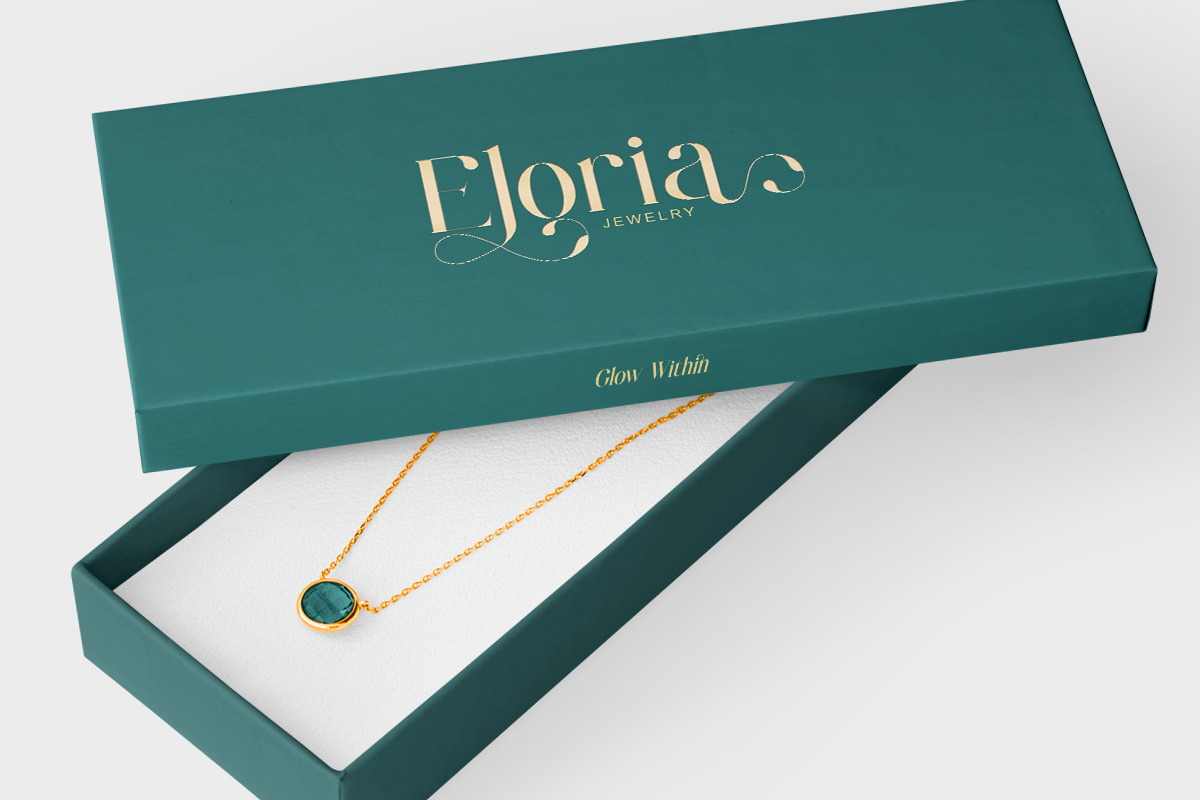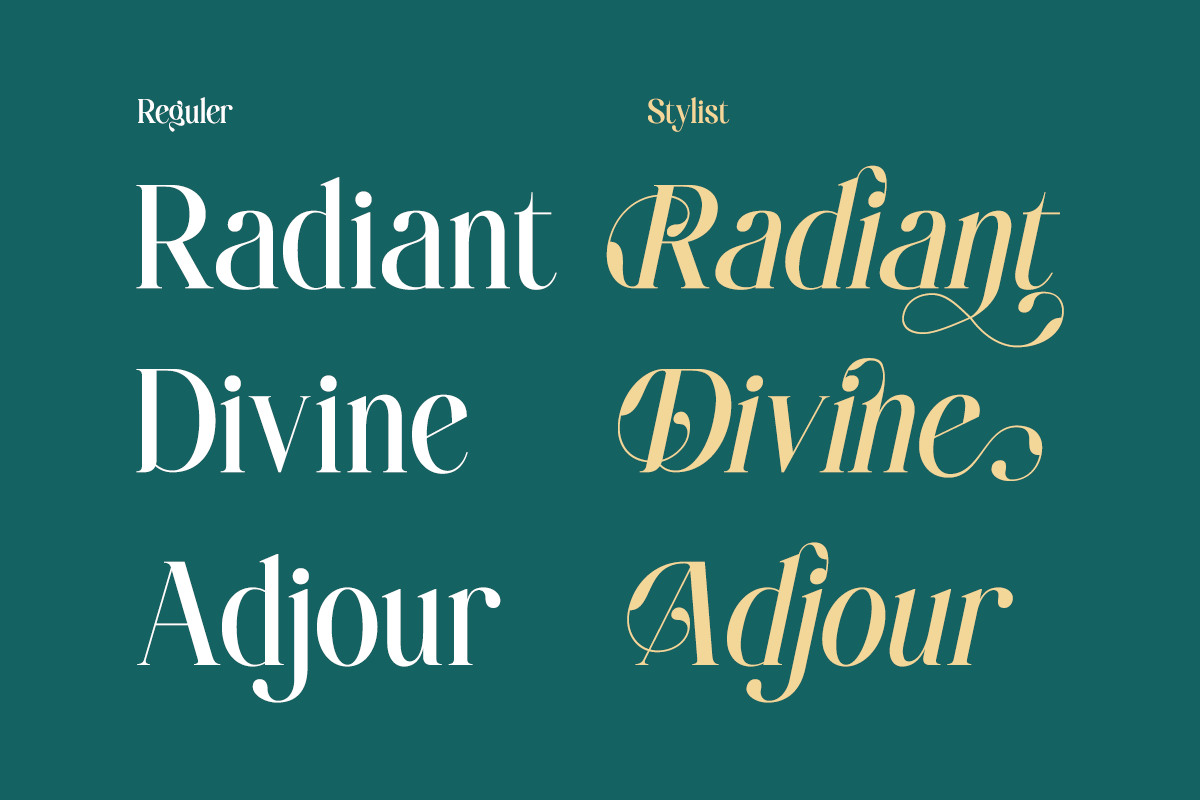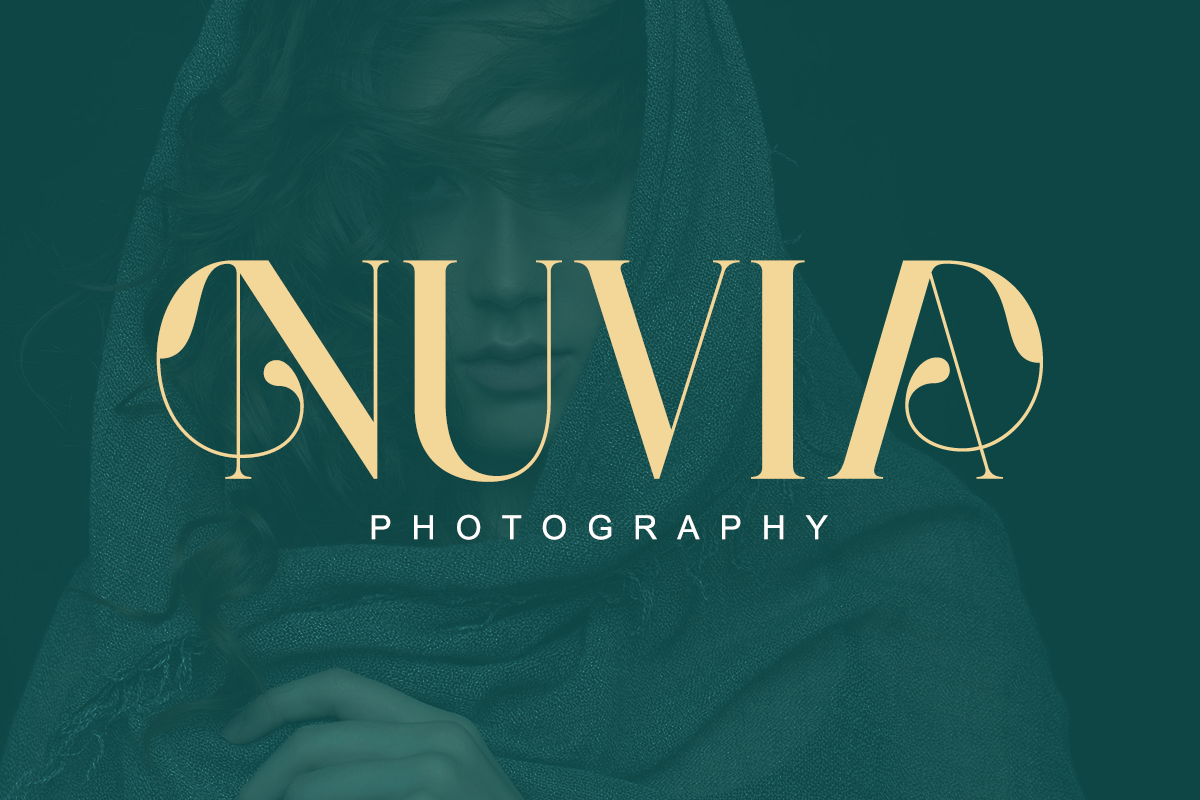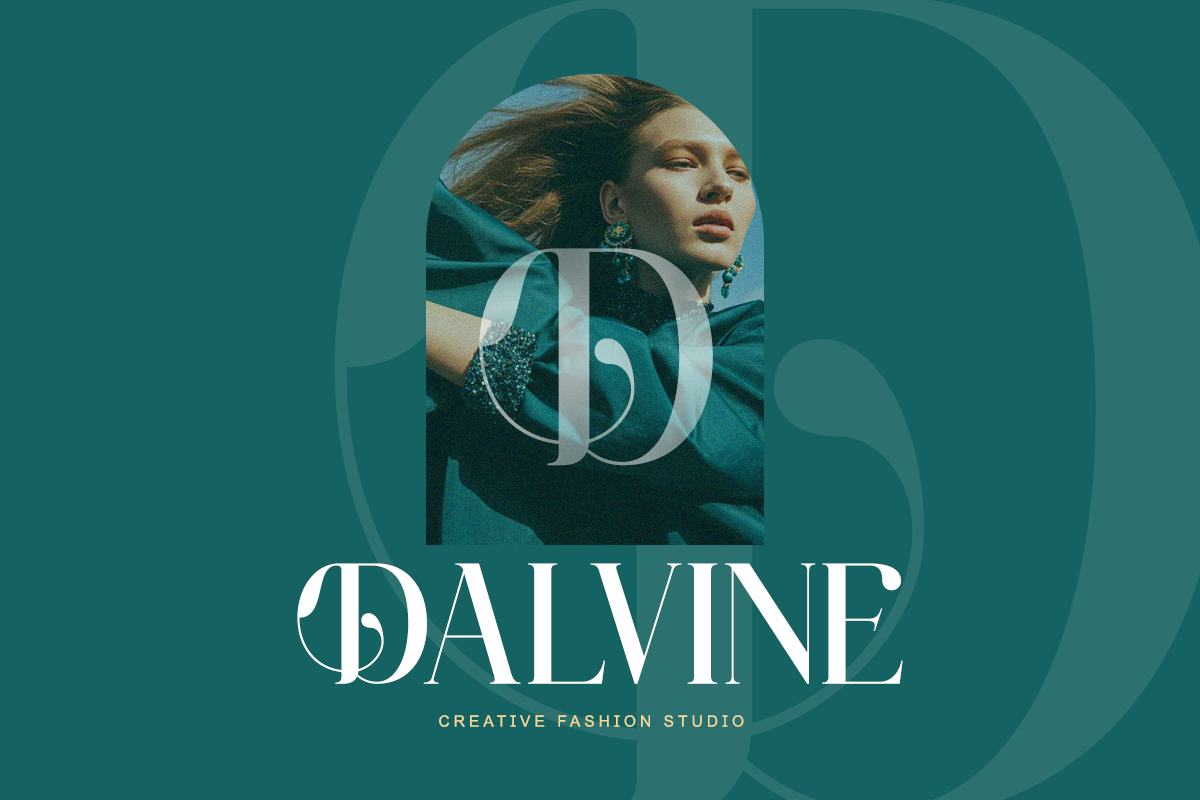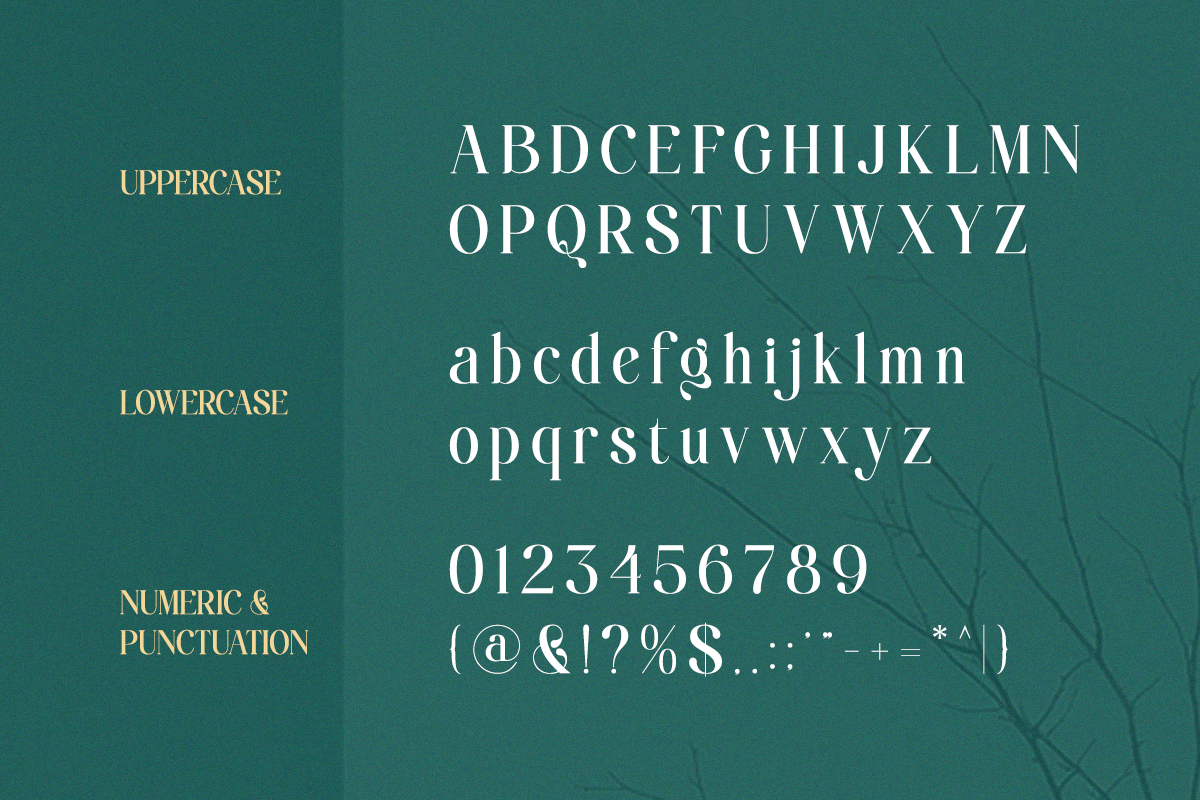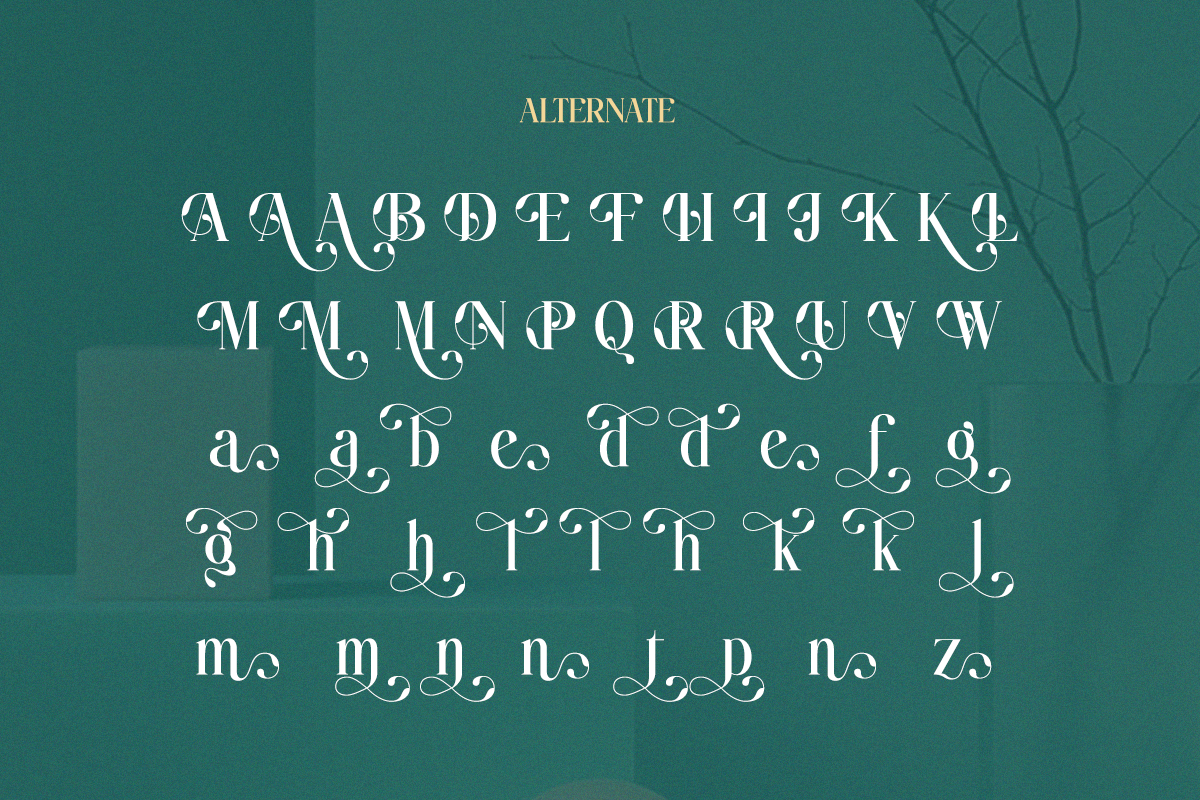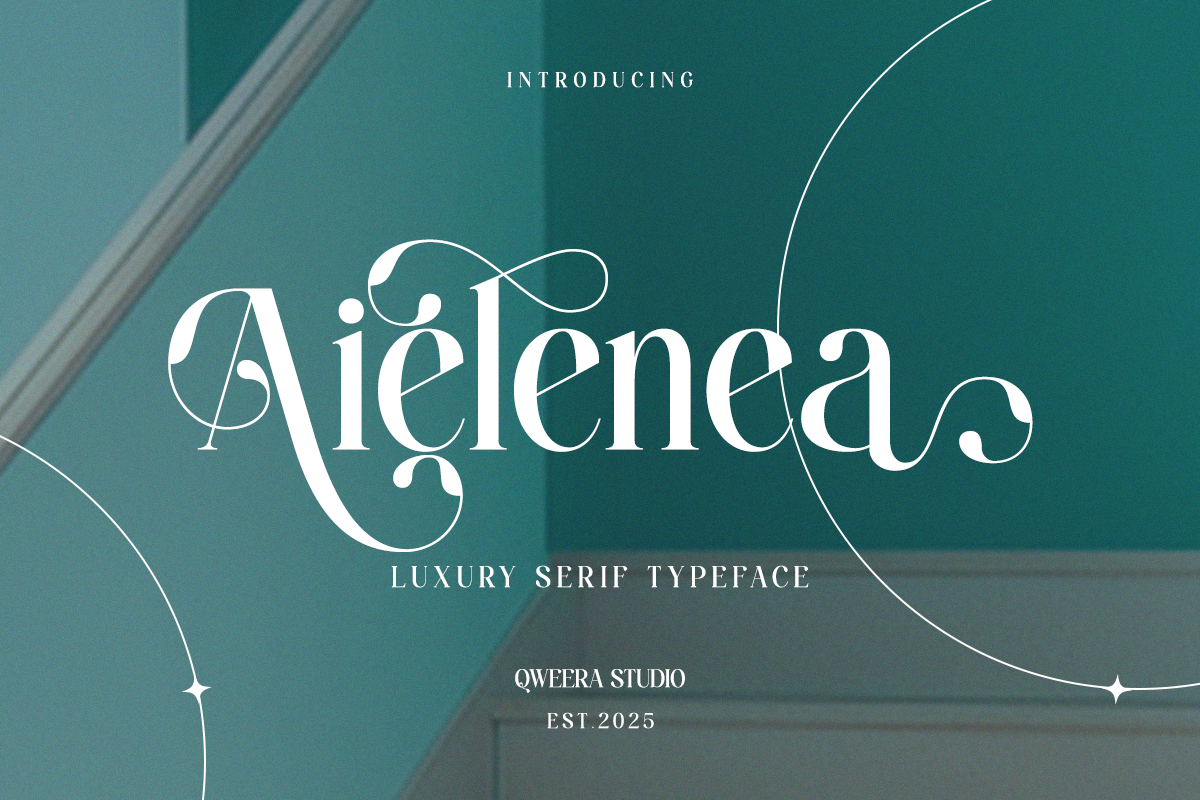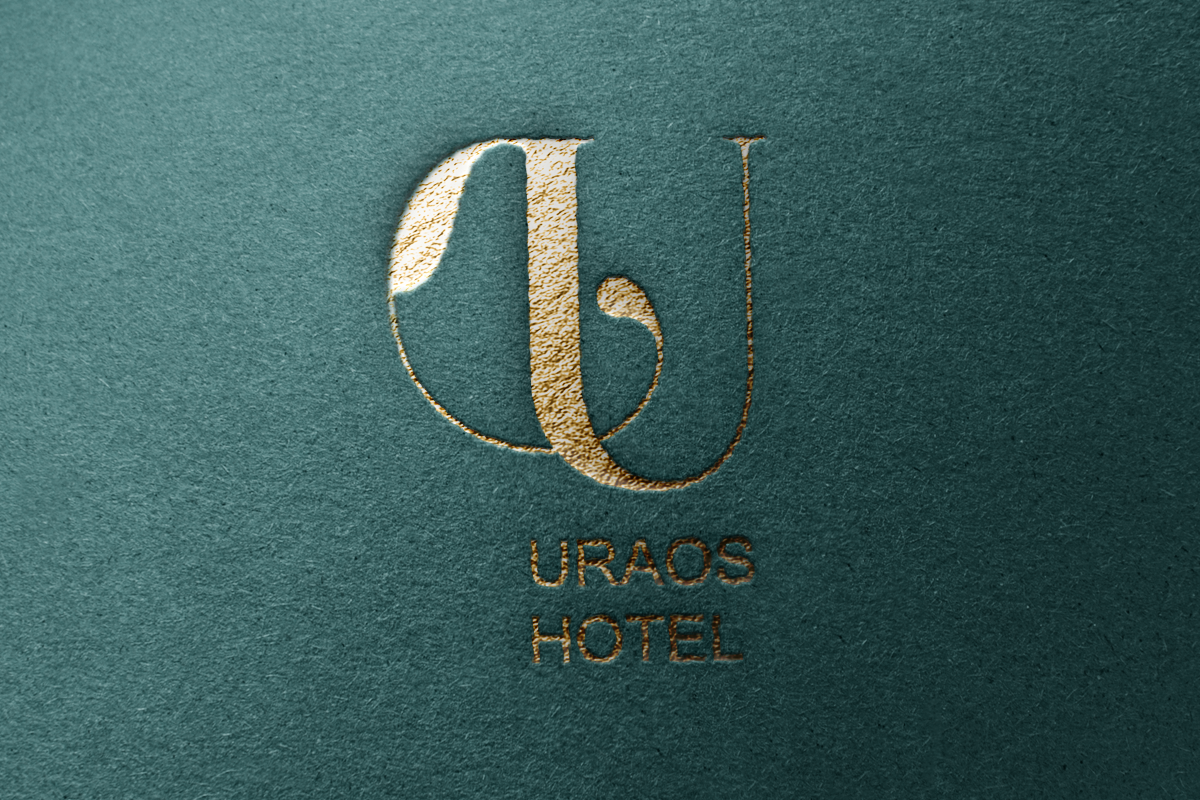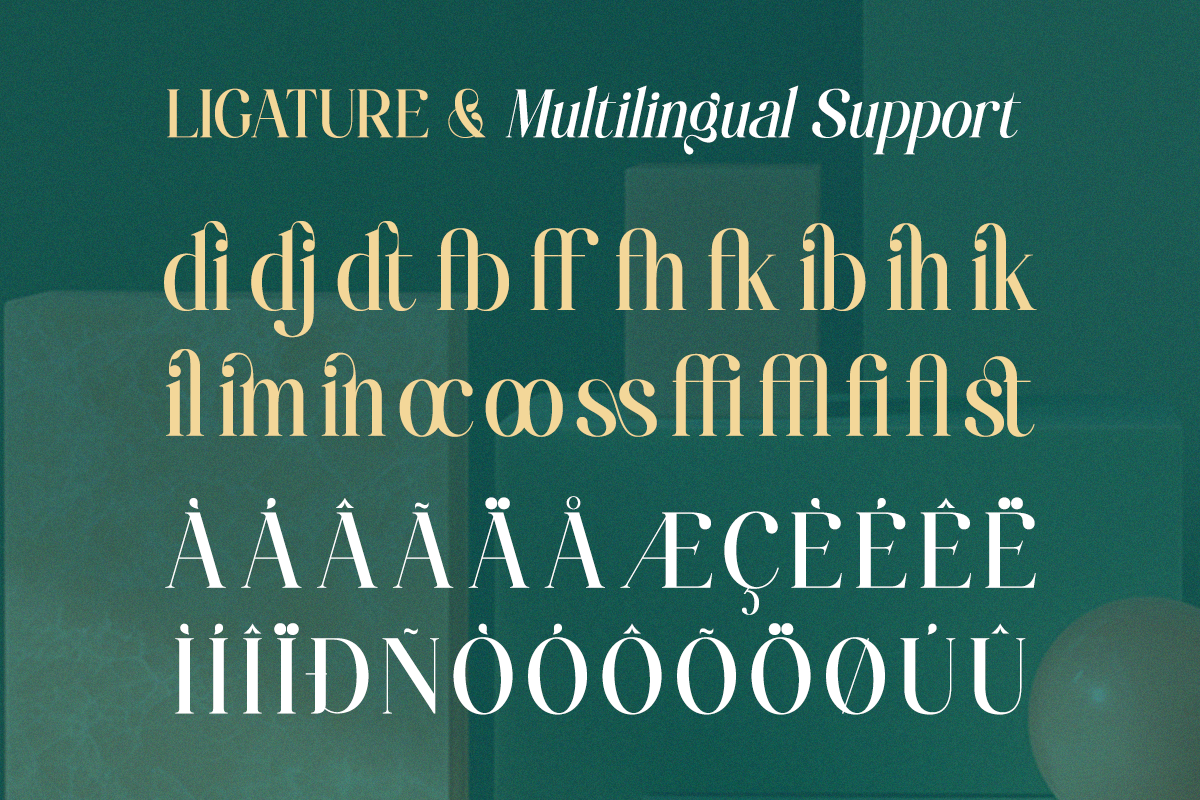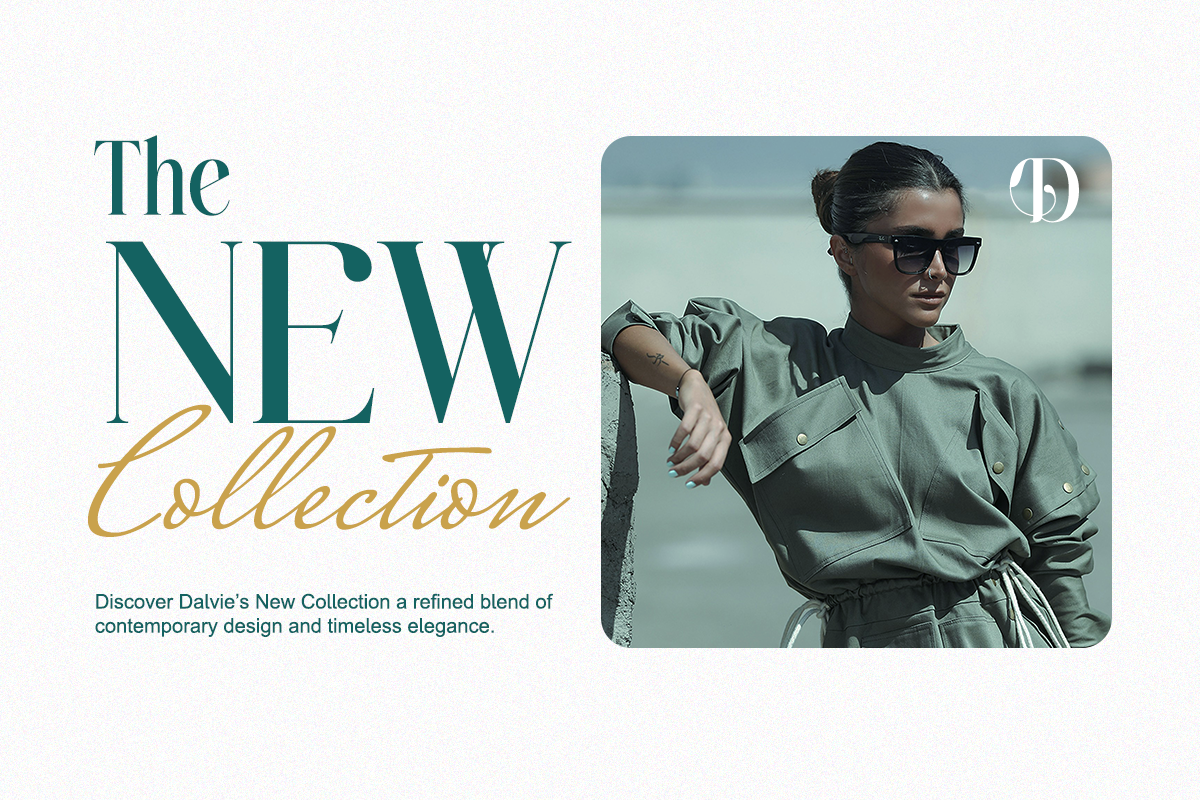
Aielenea - Elegant Luxury Serif Font
Meet Aielenea, a luxury serif font inspired by elegance and romance. With its flowing ligatures and refined serif structure, Aielenea brings softness and sophistication to modern branding and editorial design.
Perfect for projects that demand beauty, femininity, and timeless charm.
- Decorative alternates & ligatures
- Elegant serif contrast
Perfect For Beauty branding, fashion labels, luxury packaging, perfume brands, editorial headlines, wedding stationery, and premium visuals.